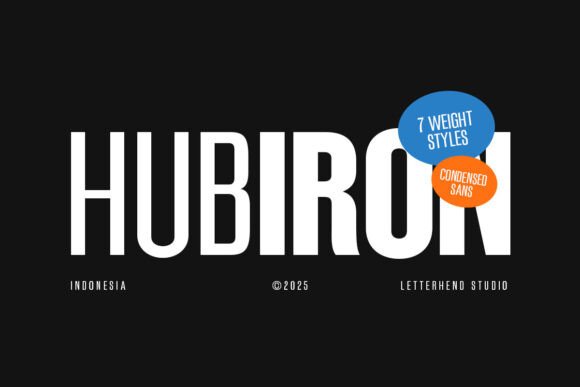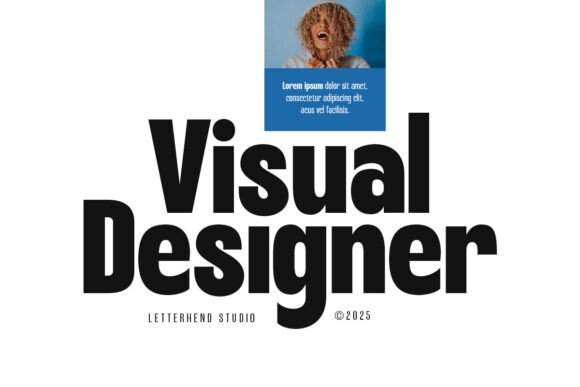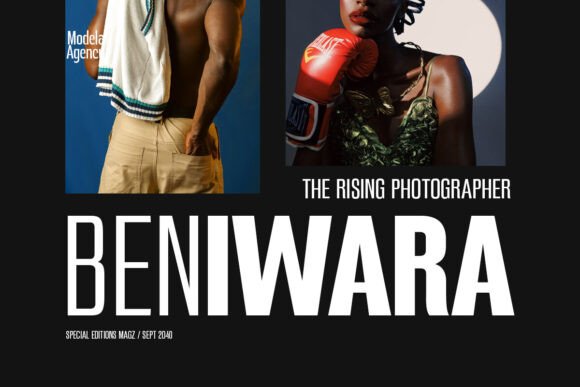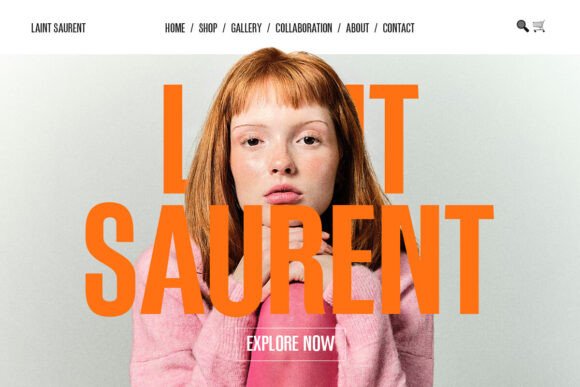
Hubiron Font
About the Hubiron Font
Experience the unique personality of Hubiron Font, a font designed for impact. Hubiron is a bold and modern condensed sans-serif font designed for strong visual impact. With its tall, narrow letterforms and clean geometric structure, this typeface is perfect for high-impact designs that require a contemporary and authoritative presence. The font comes in 7 weight styles, providing flexibility for various design needs
Hubiron excels in headline use, short impactful statements, and branding applications where a strong, modern aesthetic is desired. Its condensed nature makes it ideal for logos, posters, and packaging design, particularly for products emphasizing quality and innovation. Avoid using Hubiron for body text or extended paragraphs; its condensed forms can strain readability at smaller sizes.
The font’s bold and assertive personality pairs well with more delicate counterparts. Consider pairing it with a light, elegant serif like Lora for a sophisticated contrast, or a geometric sans-serif like Montserrat for a consistently modern feel. For a touch of playful contrast, a rounded sans-serif such as Open Sans could work well.
Hubiron projects a confident, authoritative image. It’s well-suited for brands in technology, finance, or architecture seeking to convey strength and precision. Its versatility within its weight range allows for subtle variations in tone, from bold declarations to more refined applications.
Hubiron Font Usage Examples
Hubiron Font Example